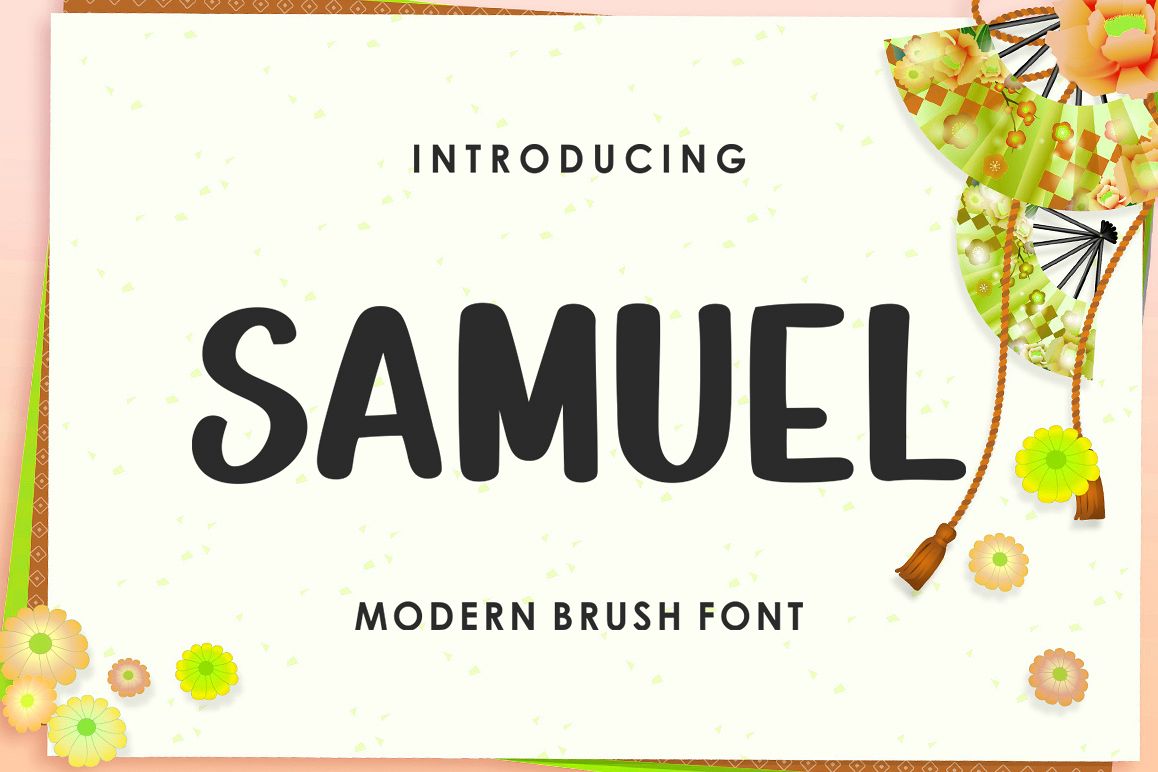
Samuel
Introducing
Samuel is modern brush font, stylish and organic. can be used for stationery, fashion, logo, merchandise, books, clothing, magazines, cover artwork etc. Syaquita includes several ligatures, alternates and international support for most western languages.